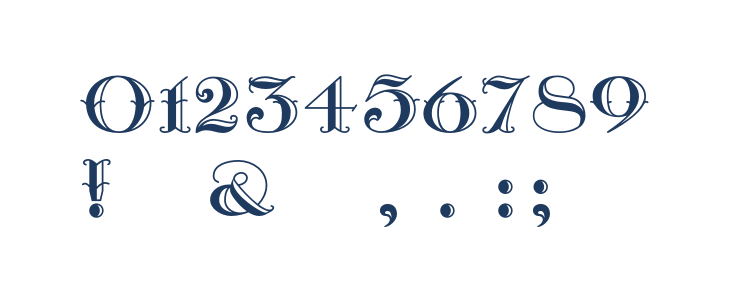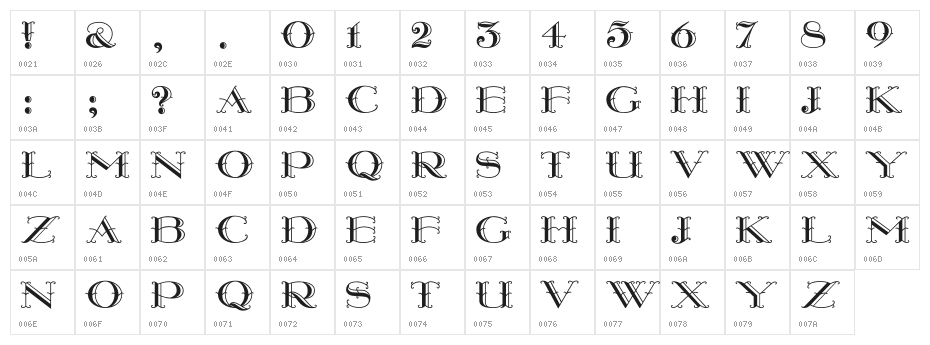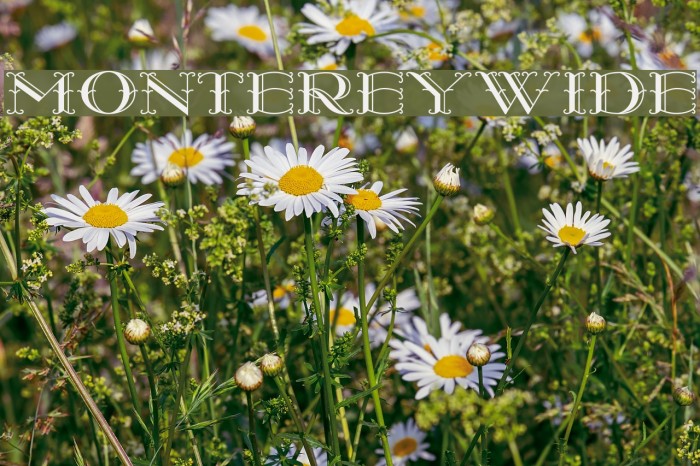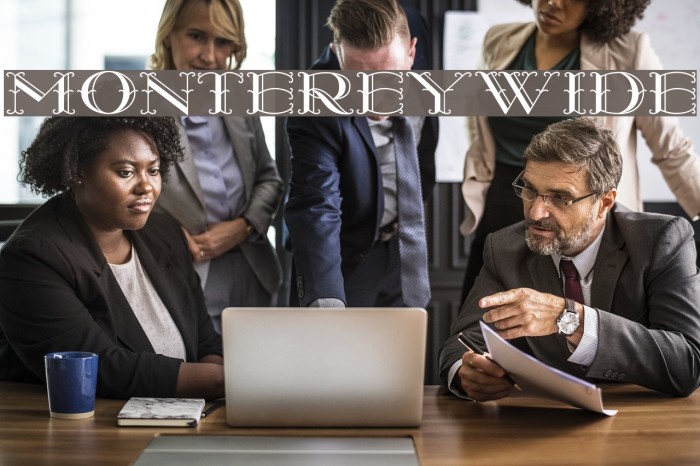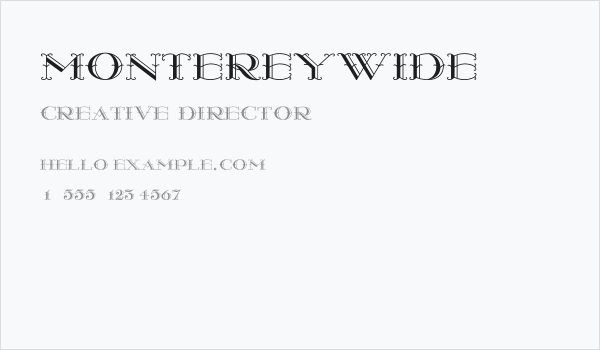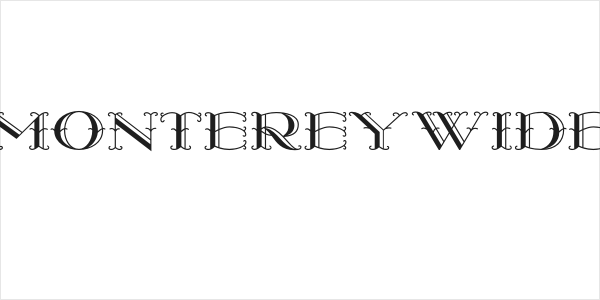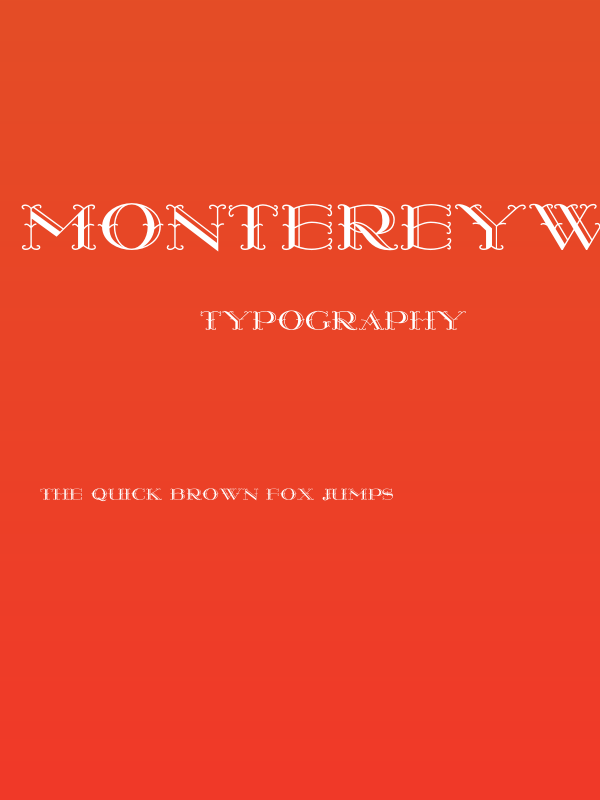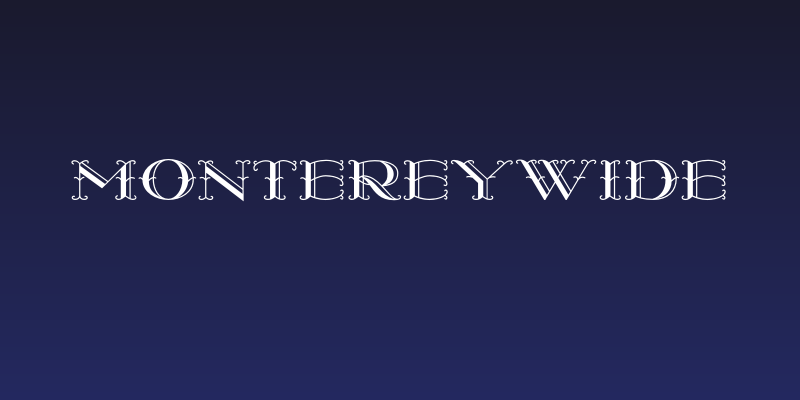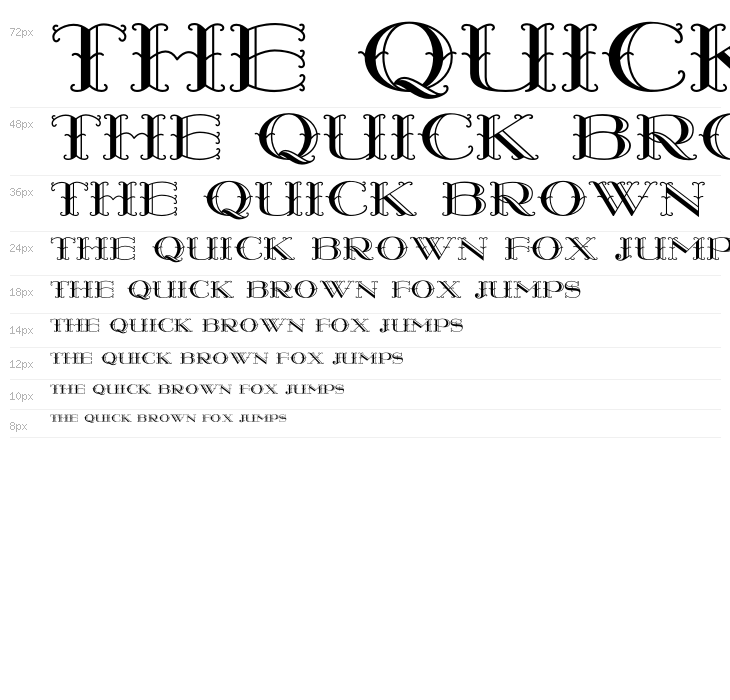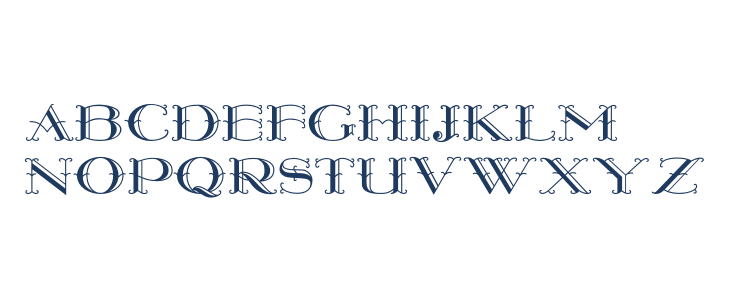
MontereyWide Font
MontereyWide Description
This font features an ornate and decorative style, characterized by its intricate detailing and flourishes. The uppercase letters are bold and striking, with unique embellishments that give each character a distinct personality. The lowercase letters maintain the decorative theme, offering a cohesive look across the typeface. The numerals are equally elaborate, ensuring consistency in design. Special characters like the ampersand and exclamation mark are crafted with the same attention to detail, making them stand out. This font is ideal for projects that require a touch of elegance and sophistication.
| Proposed Projects | Ideal for wedding invitations, luxury branding, high-end product packaging, and decorative posters. |